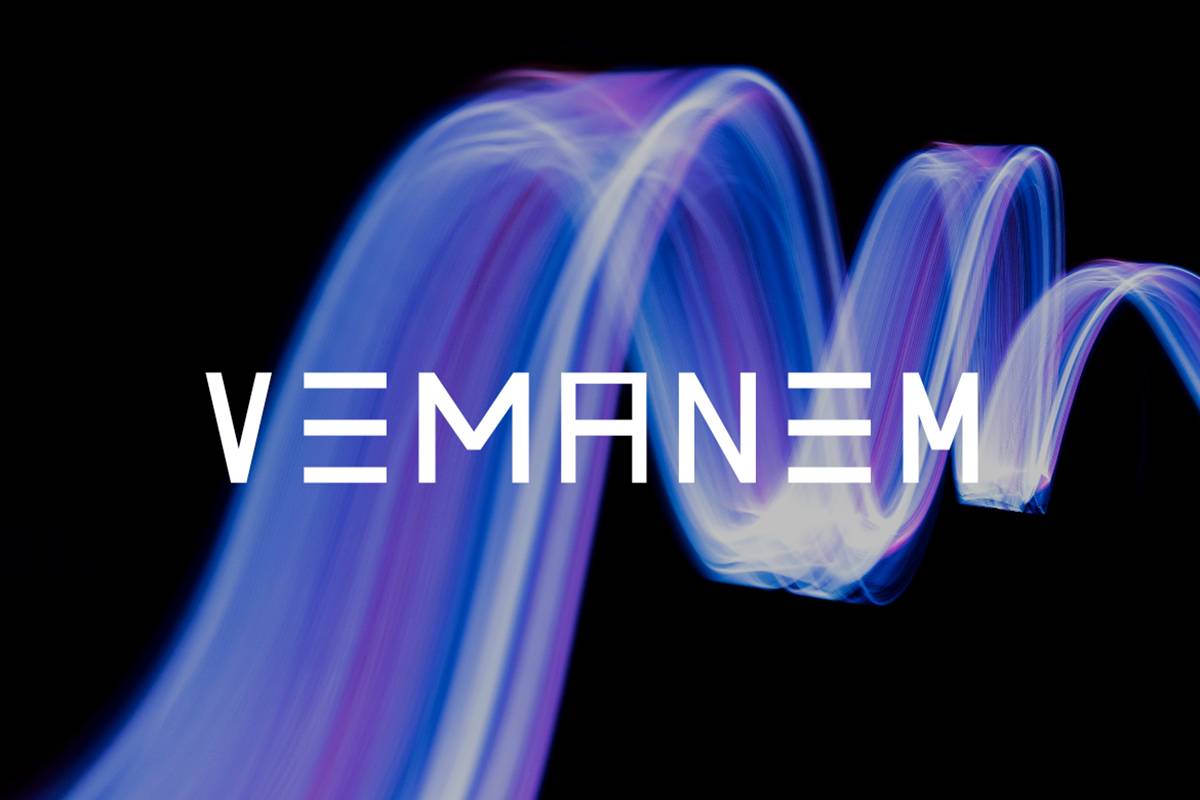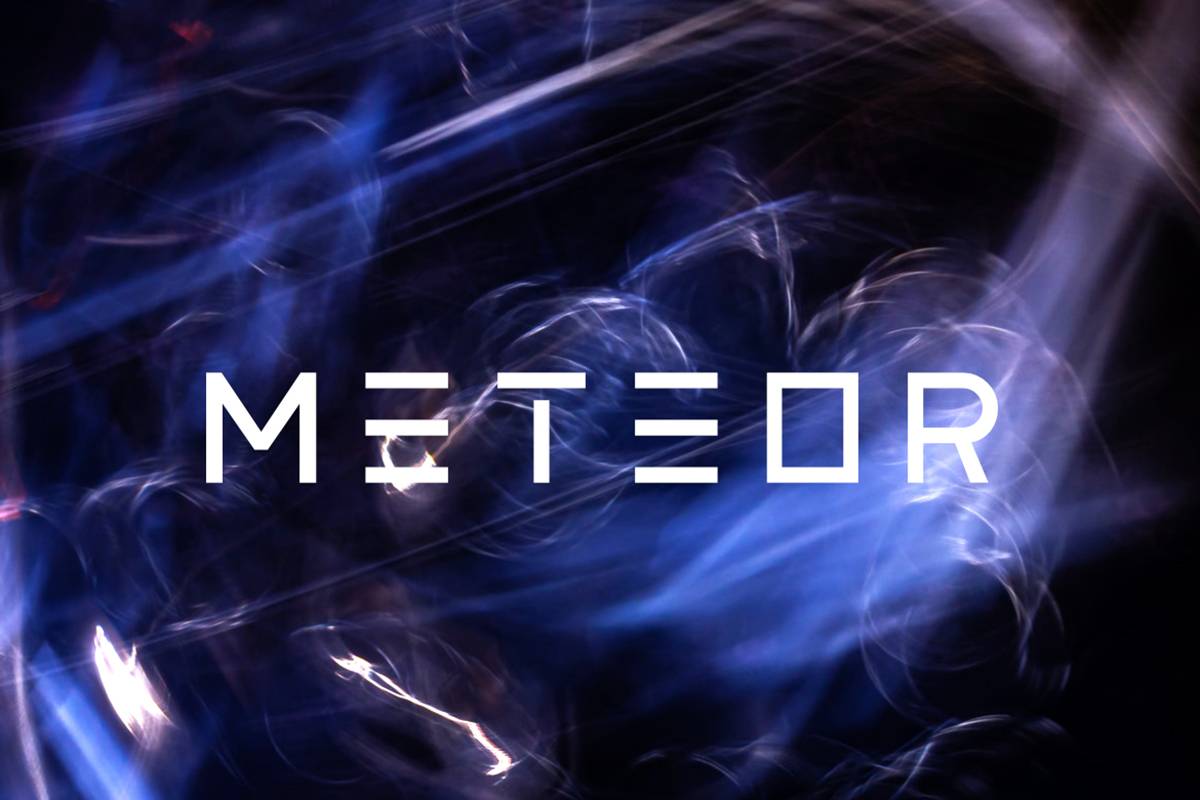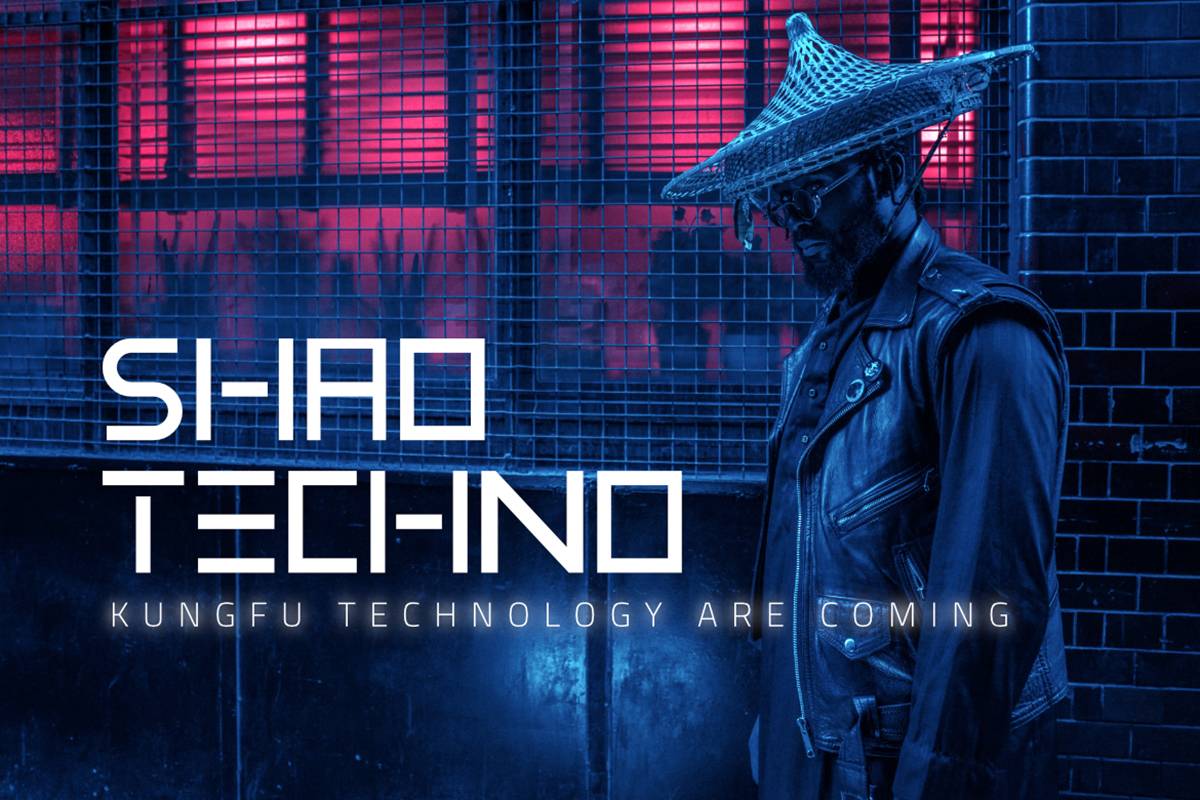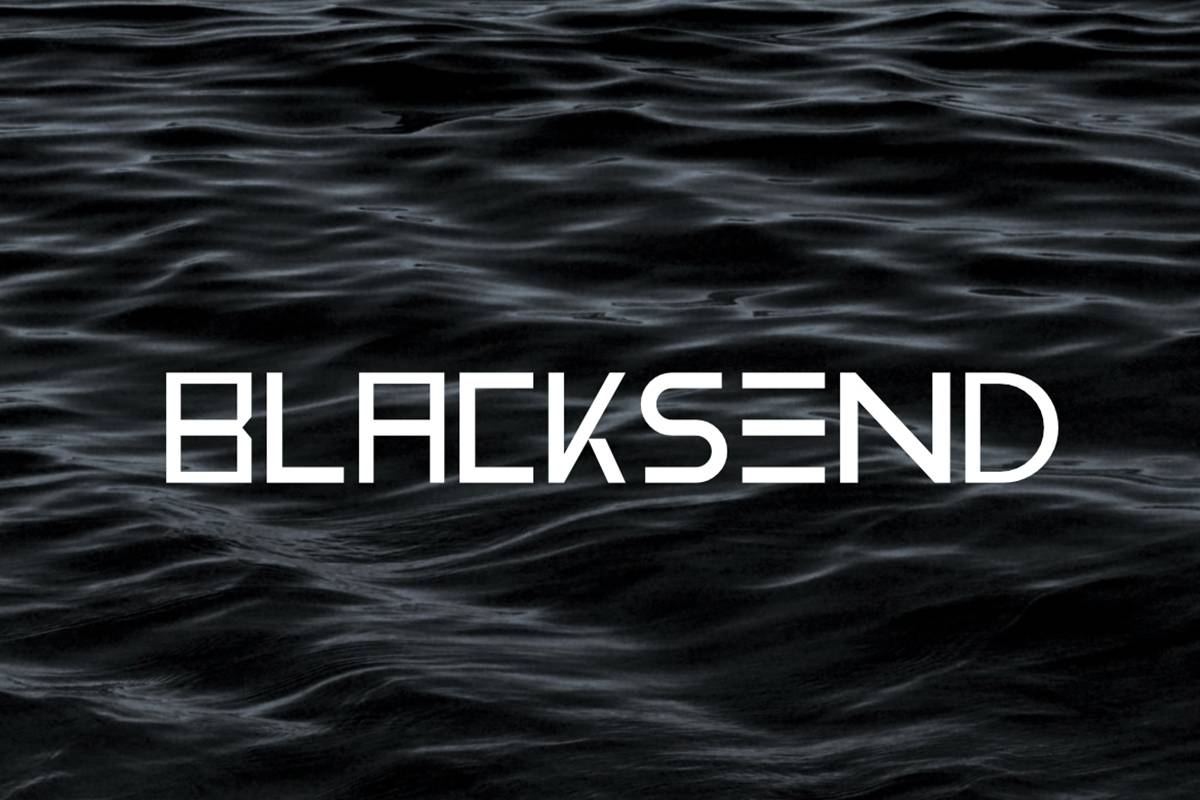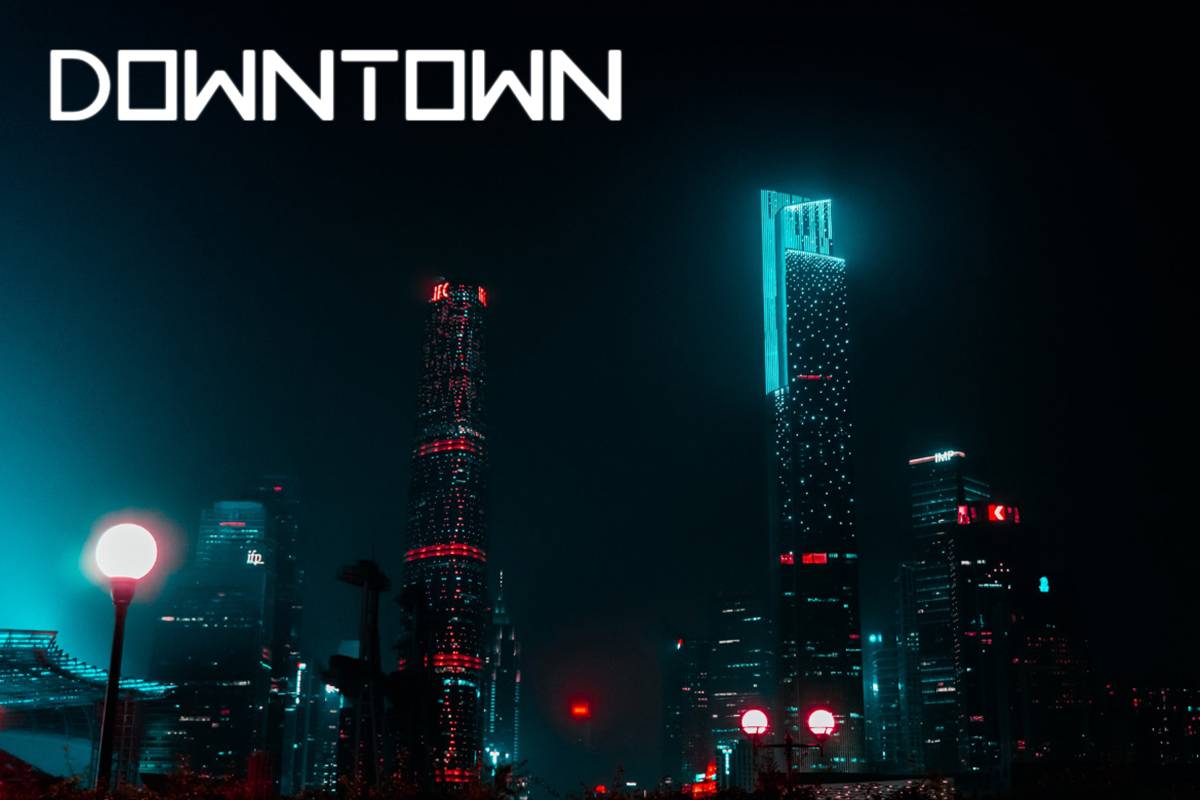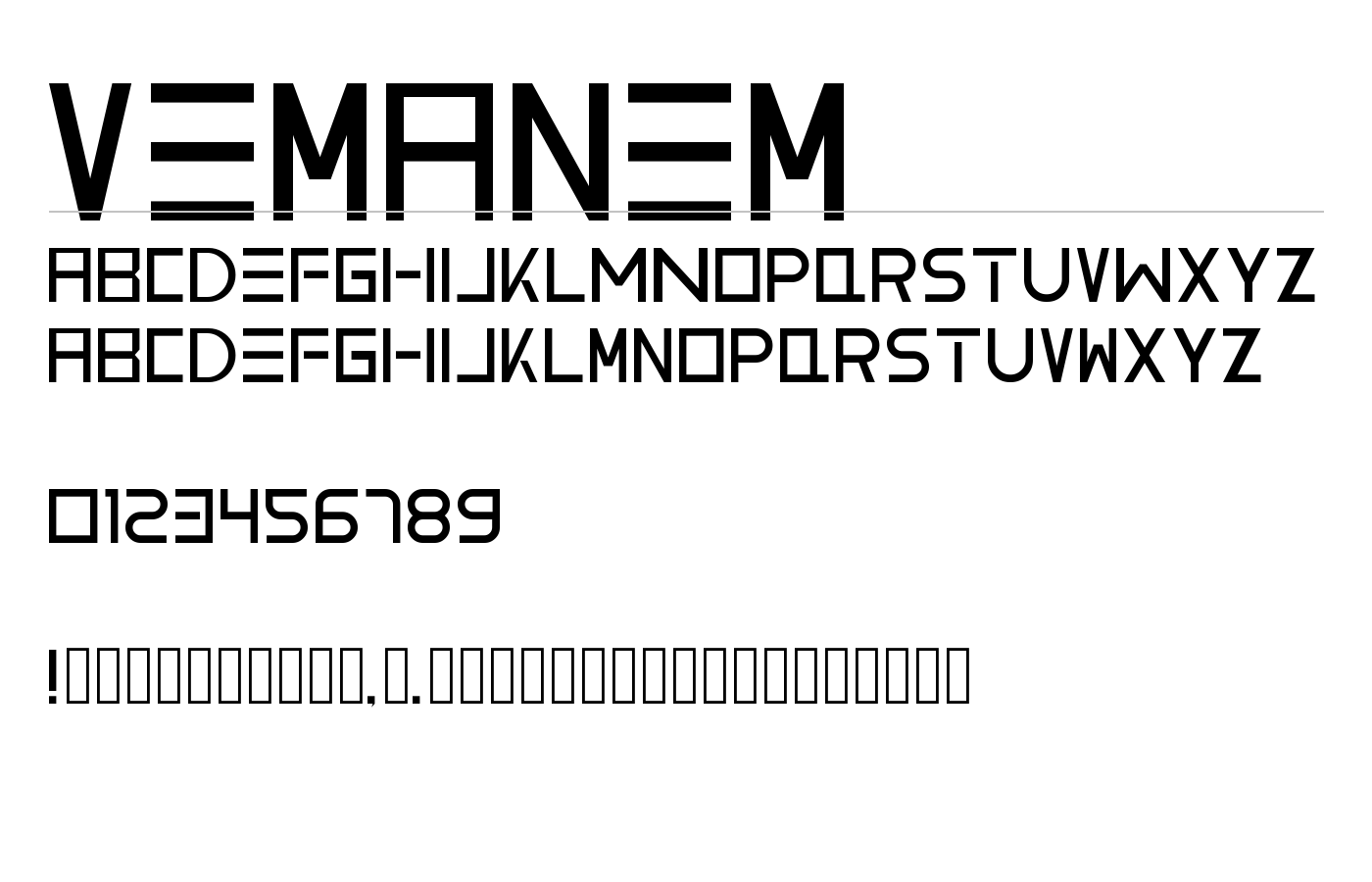
Vemanem is a modern, geometric sans serif font with a strong, condensed structure and high contrast created by its sharp, straight lines and rectangular forms. Its futuristic and technical style makes it perfect for branding, headlines, and editorial use where a bold, innovative look is desired. This font lends a sleek, contemporary feel ideal for technology, architecture, and modern design projects.
Vemanem Font
About Vemanem Font